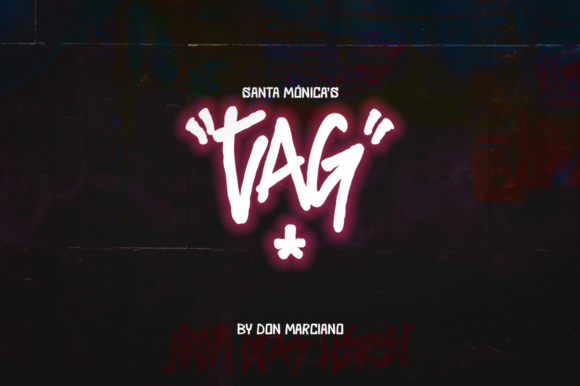
Journey into the world of Tag Font, a remarkable display font family that embodies the essence of artistic expression with a hint of urban flair. Inspired by the vibrant and bold style of spray paint art, Tag Font is a creation of DonMarciano, a renowned font designer known for capturing the essence of modern typography.
Dive into the depths of Tag Font's captivating charm and discover a treasure trove of possibilities. Whether you're a seasoned designer, an aspiring artist, or simply a creative spirit seeking a unique touch, Tag Font is your perfect companion. Unleash your imagination and let your creativity soar as you explore the boundless horizons of visual expression.
Step into the realm of Tag Font and witness how effortlessly it transforms ordinary designs into captivating masterpieces. With its dynamic and eye-catching style, Tag Font effortlessly elevates logos, posters, flyers, social media graphics, and website designs to new heights of visual appeal.
Don't settle for ordinary fonts that blend into the background. Embrace the individuality and charisma of Tag Font, a font that commands attention and leaves a lasting impression on your audience. Stand out from the crowd and let your designs shine with the vibrant energy of Tag Font, the ultimate choice for those who dare to be different.
Whether you're a seasoned graphic designer seeking a new creative edge or a budding entrepreneur seeking a font that reflects the essence of your brand, Tag Font is your perfect choice. Its versatility knows no bounds, making it an indispensable asset to any creative toolkit.